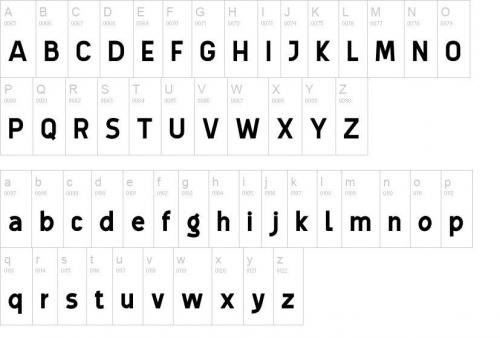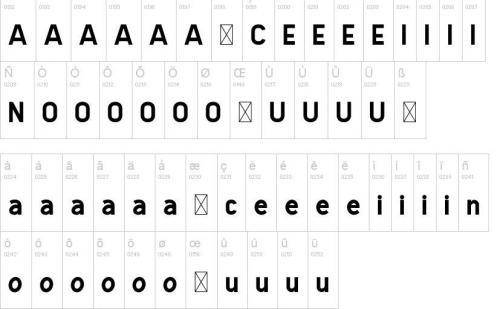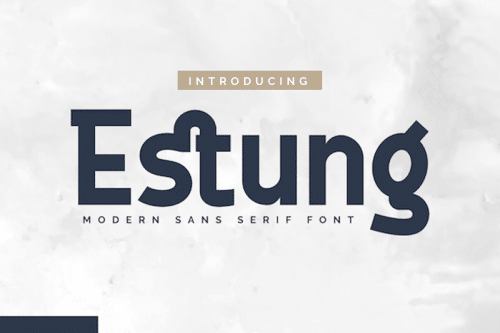
Estung is a modern sans serif font. This is the perfect font for making original and outstanding designs!
This font is PUA encoded which means you can access all of the glyphs and swashes with ease!